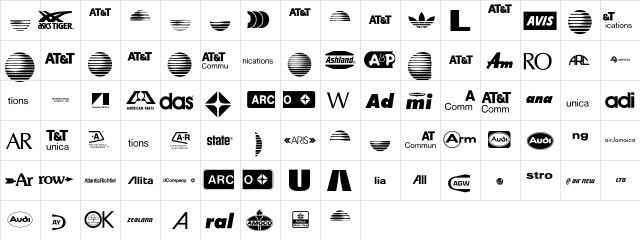
LogosCompanyP02 Regular
Design Context for LogosCompanyP02 Typeface
LogosCompanyP02 is a composed and adaptable typeface that performs quietly and consistently across a wide range of design contexts.